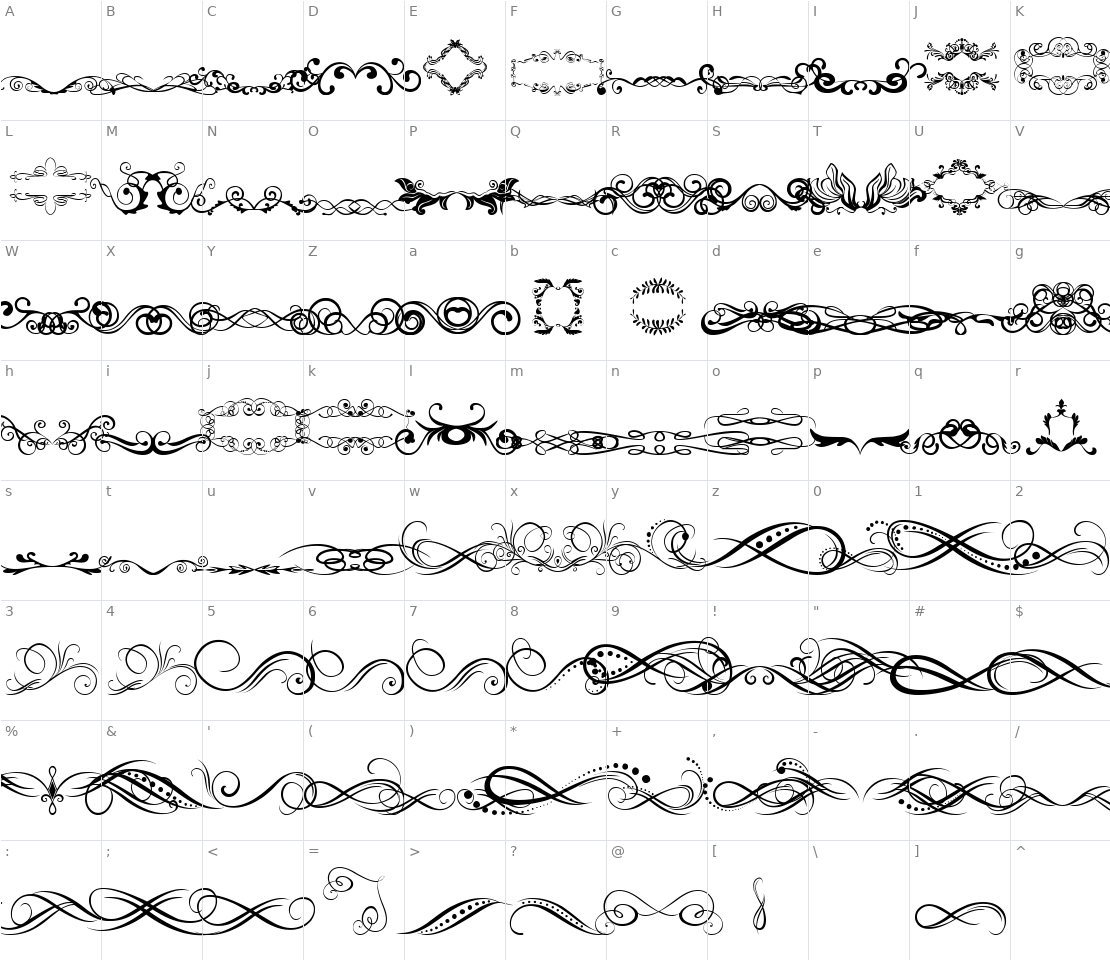
Another Ornaments TFB
Another Ornaments TFB is a set of decorative ornaments by zanatlija, featuring flourishes, swirls, floral motifs, and border elements with a vintage sensibility. The pieces work as dividers, corner accents, and frame elements, giving layouts that hand-engraved, old-world detail. Useful for invitations, certificates, editorial design, or anywhere you need elegant visual punctuation between sections of content.